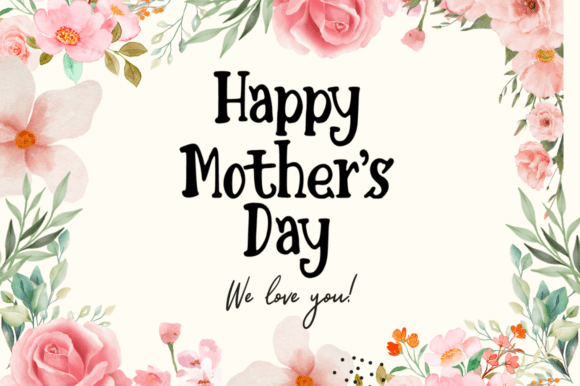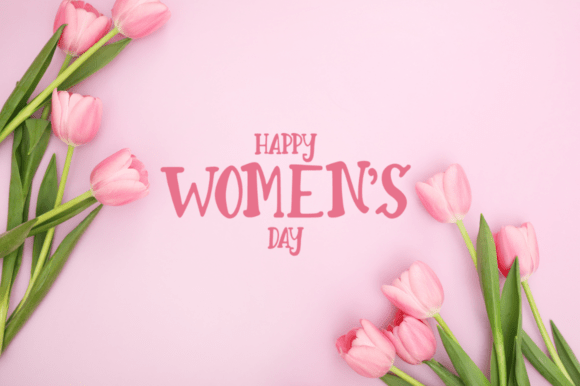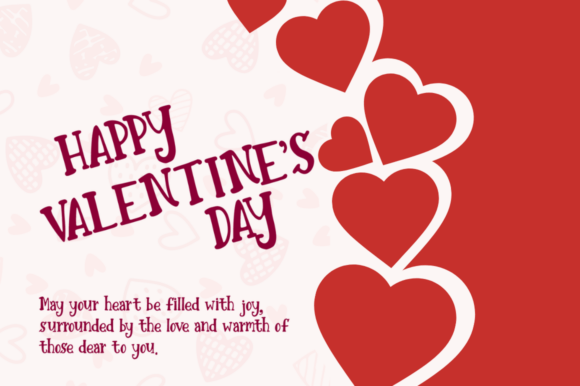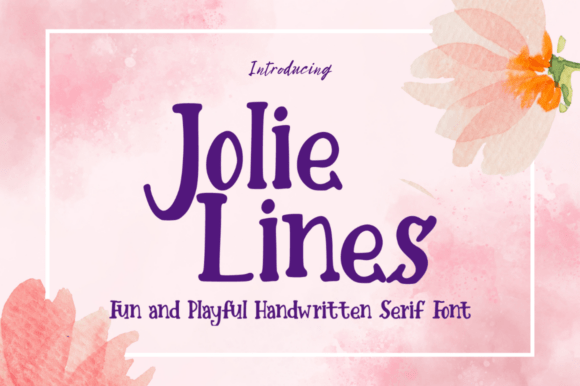
Introduction to Jolie Lines Font
Jolie Lines is a fun and playful handwritten serif font that brings a unique personality to your design projects.
With quirky letterforms and friendly curves, it’s perfect for children’s books, creative packaging, branding, fun t-shirt designs, and more Add a touch of whimsy and charm to your creations with this delightful and versatile font.
Key Features of Jolie Lines Font
Why Choose Jolie Lines Font?
Jolie Lines Font offers exceptional quality and versatility, making it a valuable addition to your design toolkit. Whether you’re creating for personal projects or commercial use, Jolie Lines Font delivers professional results.